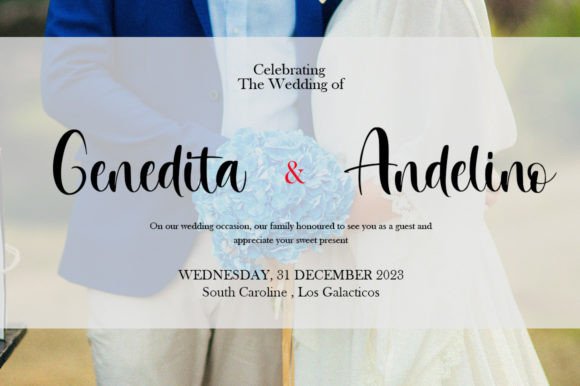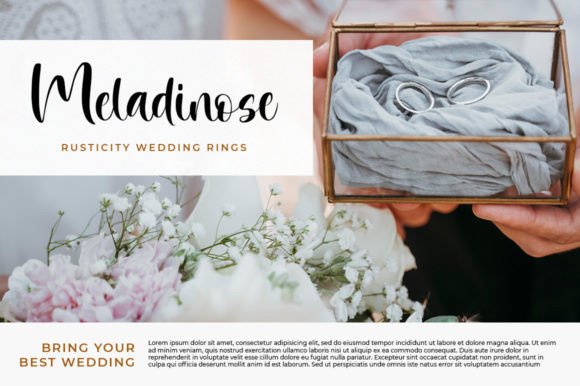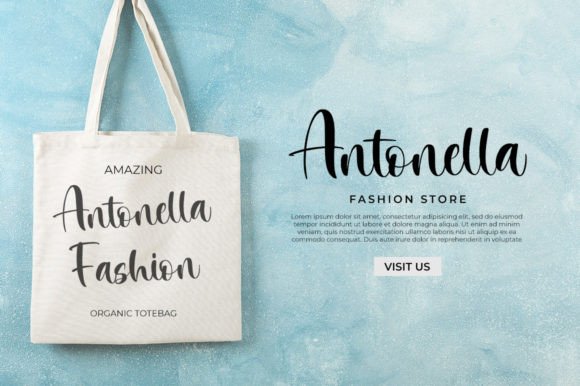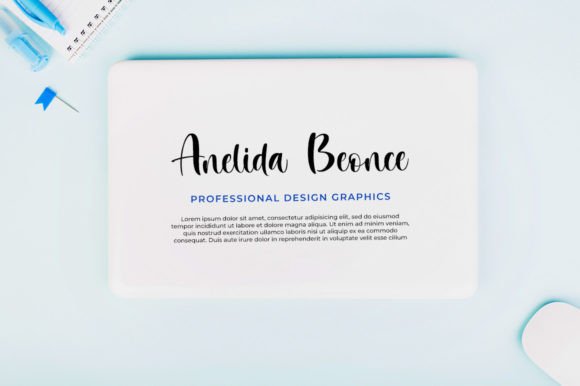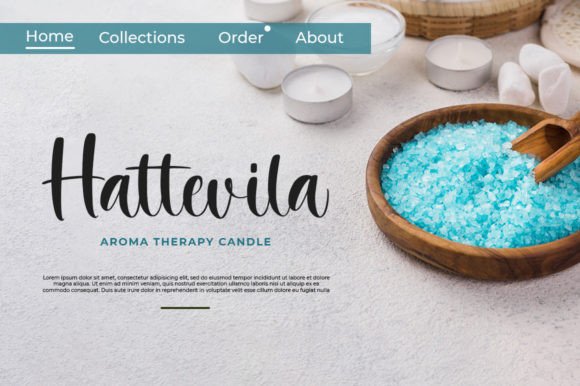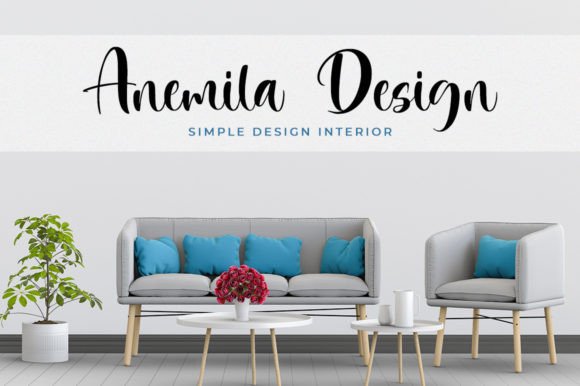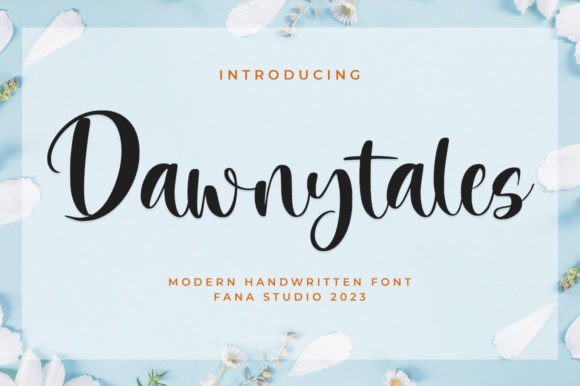
Dawnytales Font: Elevate Your Designs with Elegance and Sophistication
Are you looking for a font that can add a touch of elegance and modernity to your art projects? Look no further than the Dawnytales Font. This beautiful script font is designed to provide a personal touch to your designs, making them stand out from the crowd. With its classy and sophisticated look, Dawnytales Script is perfect for a wide range of projects, from logos and branding to wedding designs and social media posts.
What Makes Dawnytales Font So Special?
The Dawnytales Font is a stunning script font that boasts a unique and elegant style. Its gorgeous typographic features make it perfect for designers and crafters who want to add a touch of sophistication to their work. Whether you’re creating a logo, invitation, or social media post, Dawnytales Script is sure to impress.
One of the key features of Dawnytales Font is its versatility. This font can be used for a wide range of projects, including:
- Logos & Branding: Create a lasting impression with a custom logo that exudes elegance and sophistication.
- Invitations: Make your invitations stand out with a beautiful, hand-written font.
- Stationery: Add a touch of class to your stationery with Dawnytales Script.
- Wedding Designs: Make your wedding designs truly special with this gorgeous font.
- Social Media Posts: Elevate your social media posts with a font that’s sure to grab attention.
- Advertisements: Create eye-catching advertisements that showcase your brand’s personality.
- Product Packaging: Add a touch of elegance to your product packaging with Dawnytales Script.
- Product Designs: Create stunning product designs that showcase your brand’s style.
- Labels: Make your labels stand out with a beautiful, hand-written font.
- Photography: Add a touch of sophistication to your photography with Dawnytales Script.
- Watermarks: Create elegant watermarks that protect your work.
- Special Events: Make your special events truly unforgettable with this gorgeous font.
Why Choose Dawnytales Font?
There are many reasons why Dawnytales Font stands out from the crowd. Here are just a few:
- Elegant and Modern Look: Dawnytales Script boasts a stunning, modern look that’s sure to impress.
- Versatile: This font can be used for a wide range of projects, making it a great addition to any designer’s toolkit.
- Handwritten Taste: Dawnytales Script offers a beautiful, hand-written taste that’s perfect for designers who want to add a personal touch to their work.
- Easy to Read: Despite its elegant style, Dawnytales Script is easy to read, making it perfect for body text and headlines.
Here are a few tips for getting the most out of Dawnytales Script:
- Experiment with Different Sizes: Dawnytales Script looks great in a variety of sizes, from large headlines to small body text.
- Pair it with Other Fonts: Dawnytales Script pairs well with a variety of other fonts, making it easy to create stunning contrast.
- Use it for Headlines and Titles: Dawnytales Script is perfect for headlines and titles, where its elegant style can really shine.
In conclusion, Dawnytales Font is a stunning script font that’s perfect for designers and crafters who want to add a touch of elegance and sophistication to their work. With its versatile style, gorgeous typographic features, and easy-to-read design, Dawnytales Script is sure to become a favorite in your toolkit. So why wait? Download Dawnytales Font today and start elevating your designs to the next level.